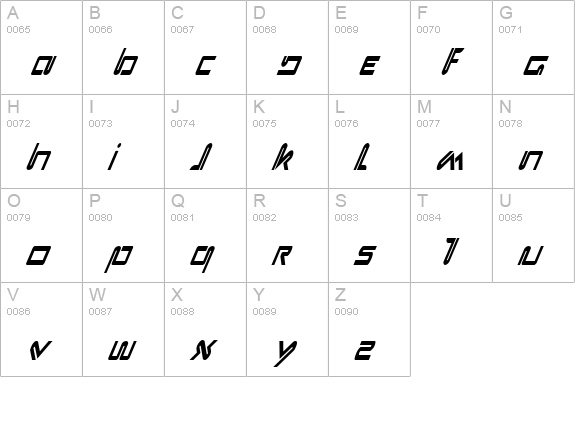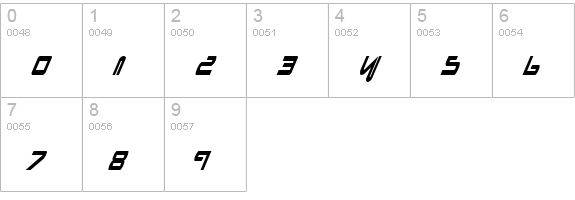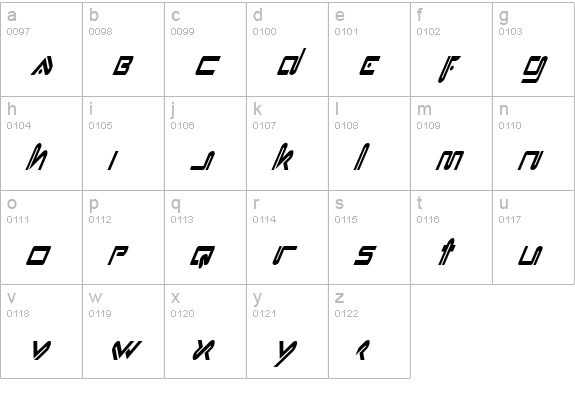
Xephyr Condensed Italic is a distinctive, condensed-width, italic variant in the Xephyr typeface family \xE2\x80\x94 well suited to design and typography projects.
Xephyr Condensed Italic font is a sleek and modern typeface that exudes elegance and sophistication. Its italicized design adds a touch of flair and style to any project, making it perfect for branding, advertising, and editorial purposes. The condensed nature of this font allows for efficient use of space without sacrificing readability. What's even better is that Xephyr Condensed Italic font is available for free download at FontsMarket.com. This means you can easily access this high-quality font to elevate your designs without breaking the bank. Don't miss out on the opportunity to enhance your projects with the sophisticated charm of Xephyr Condensed Italic font - download it for free today!